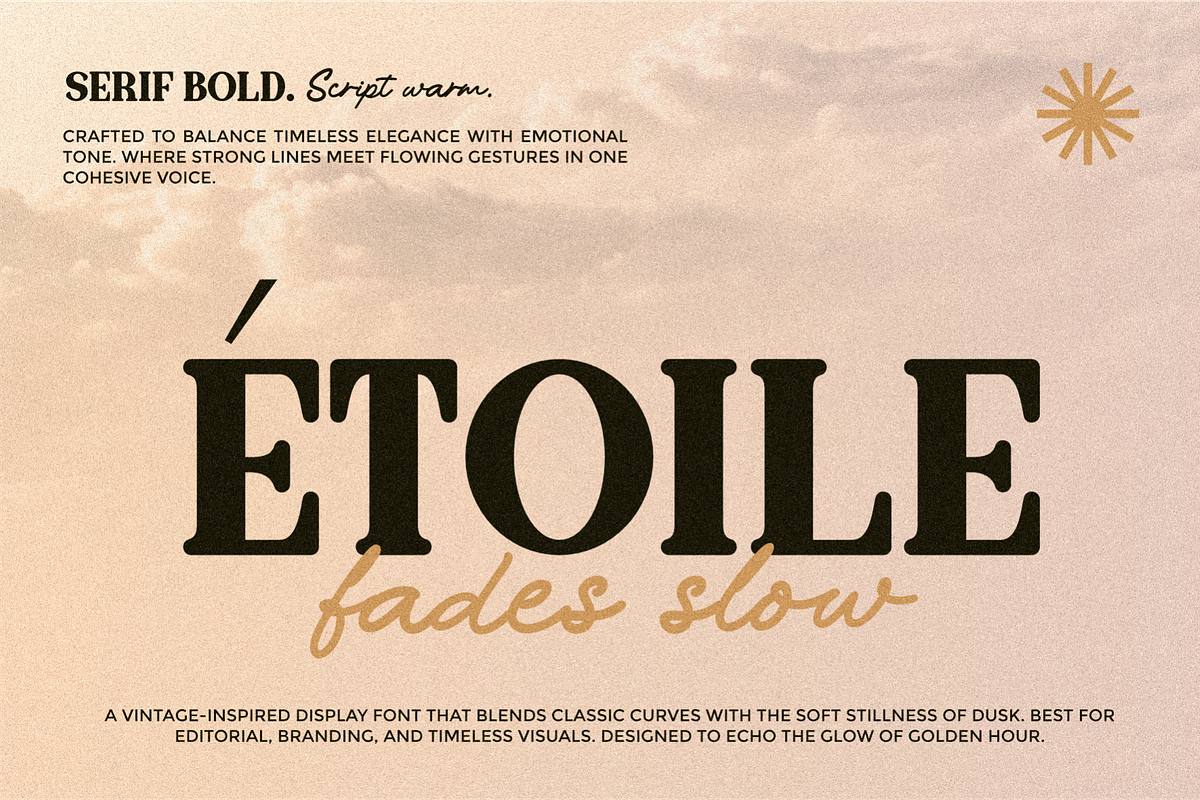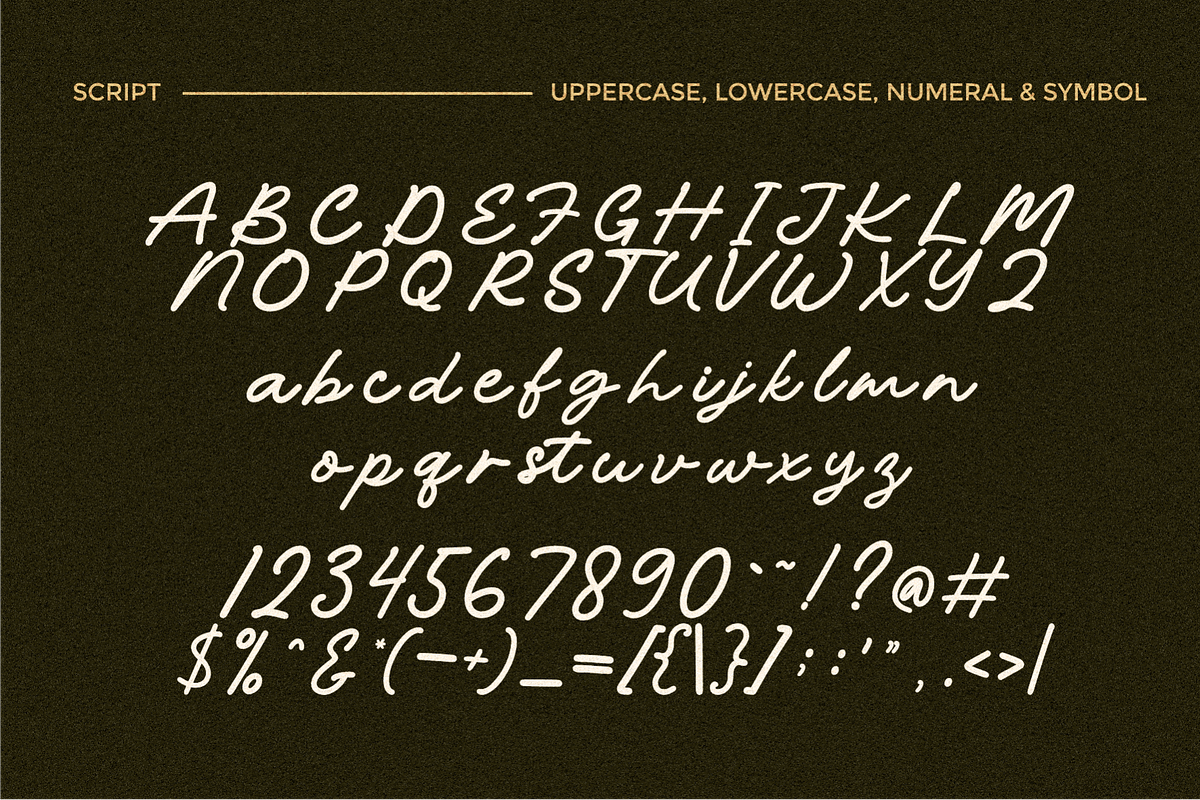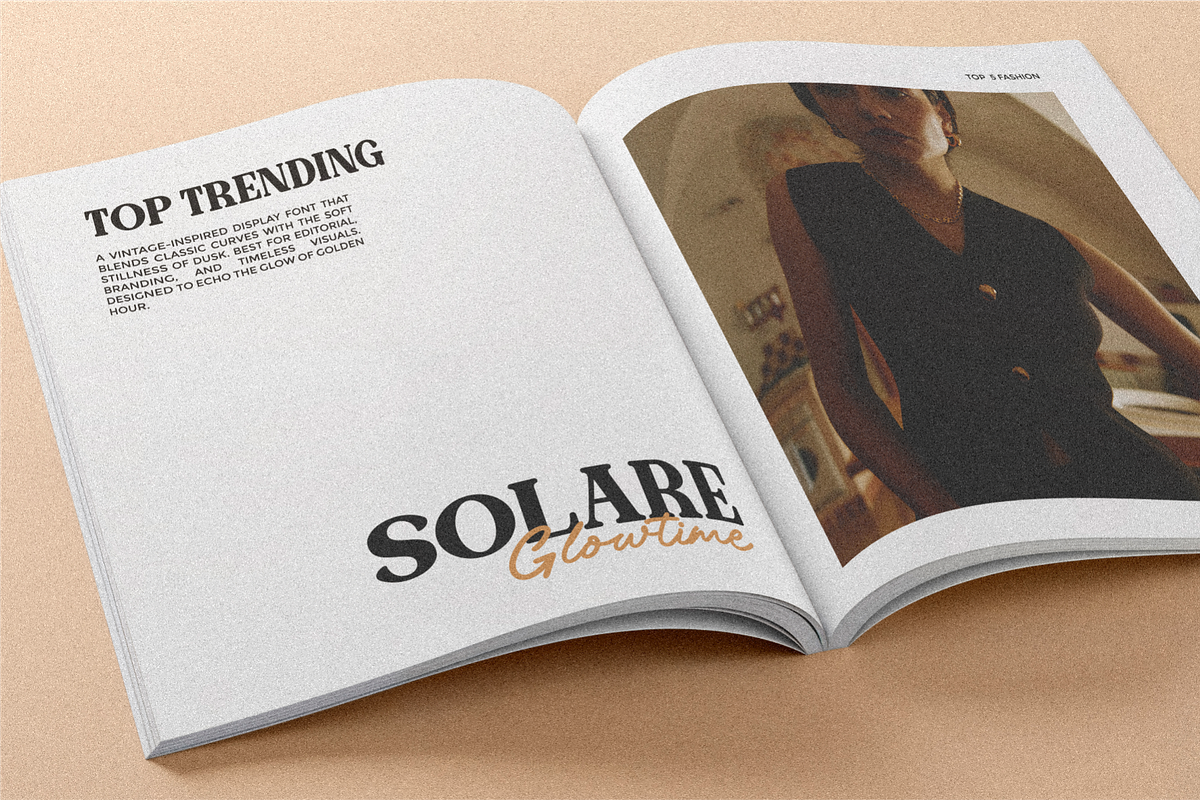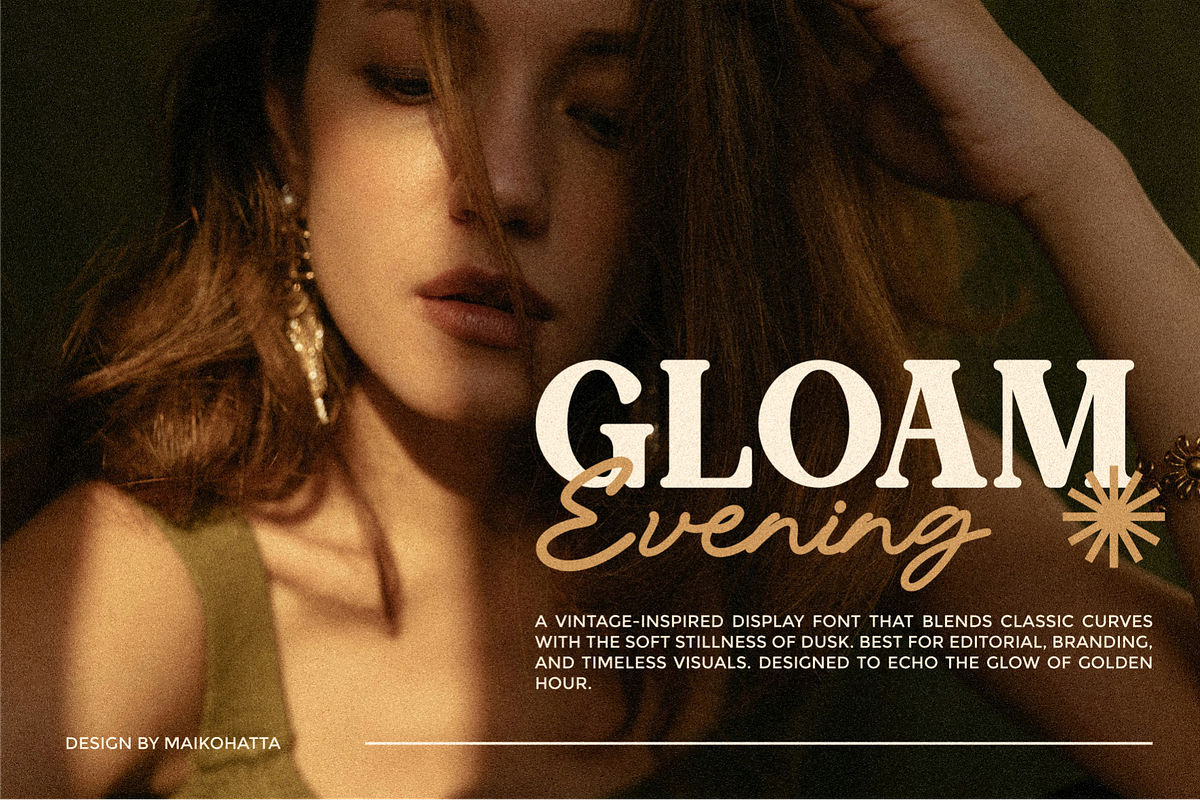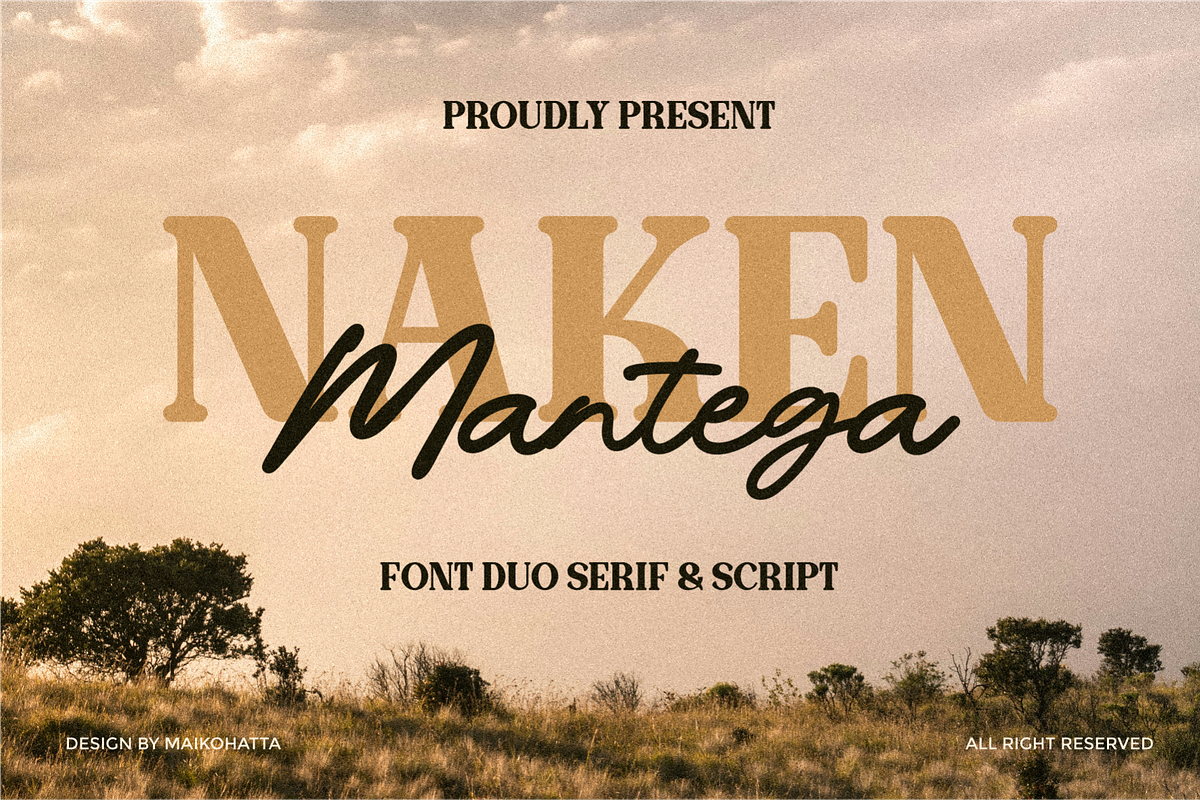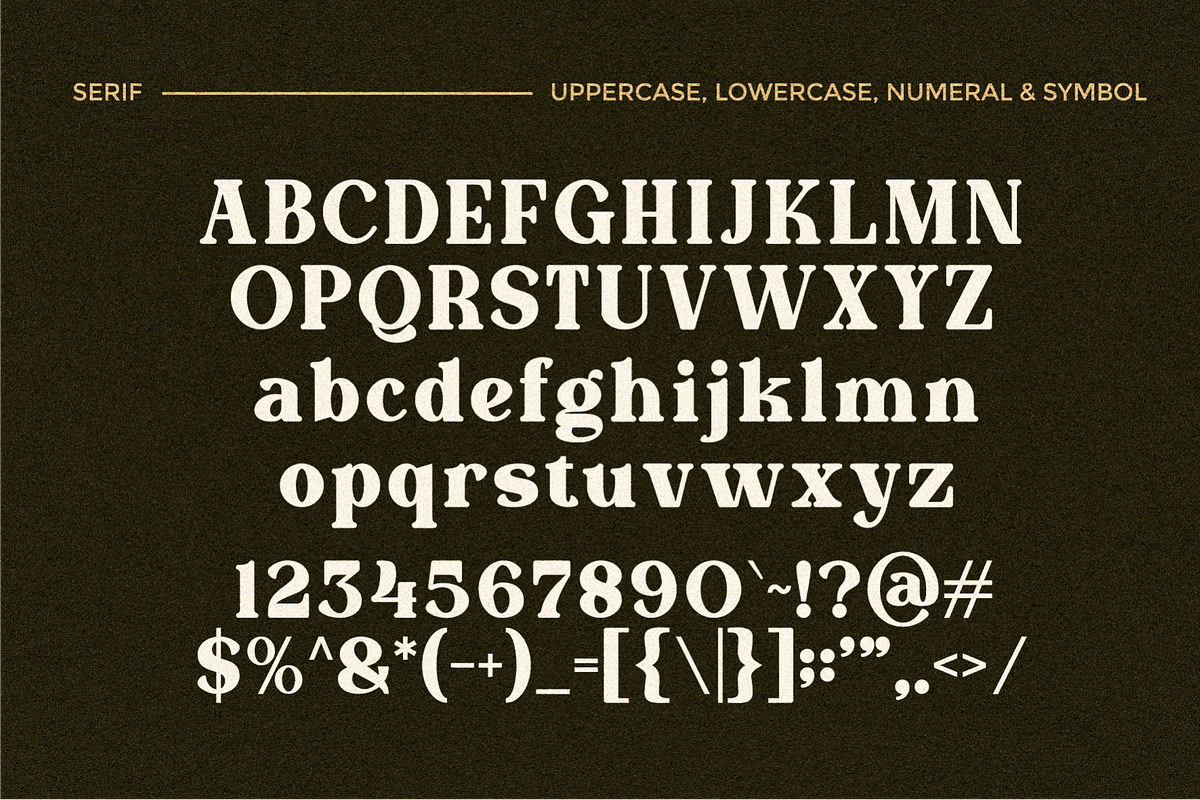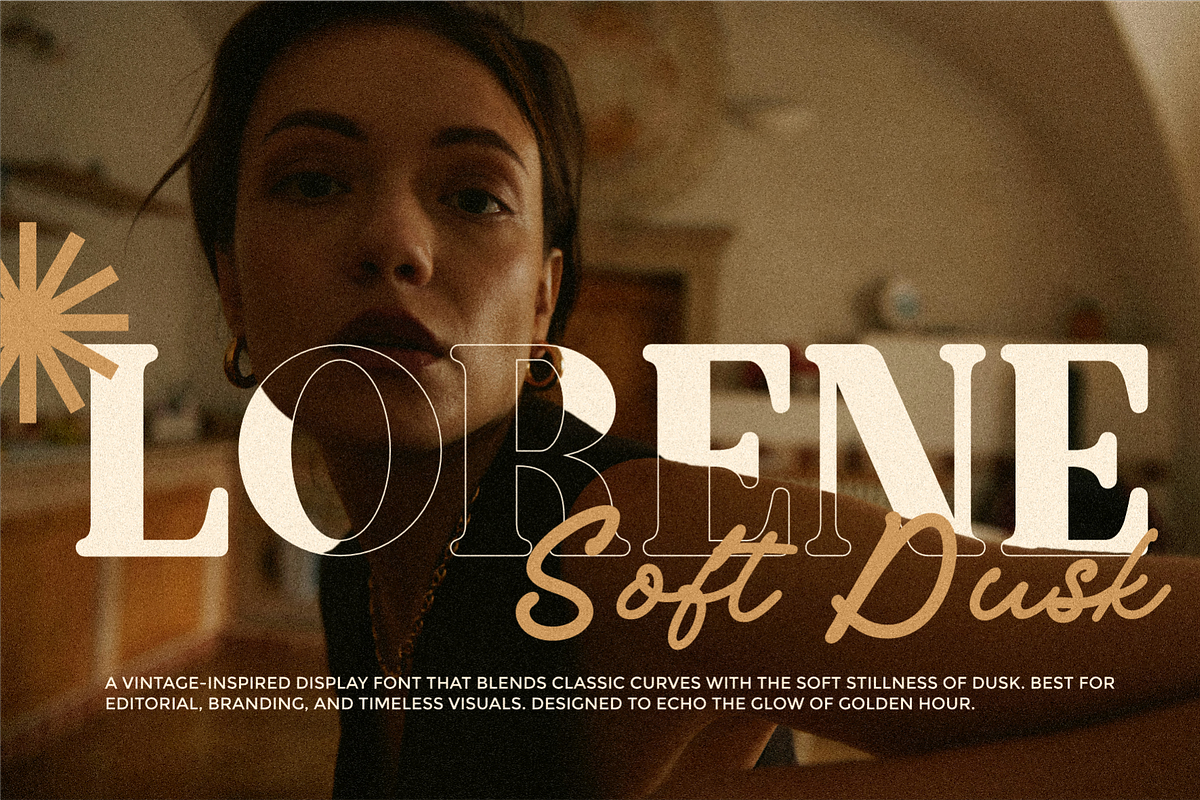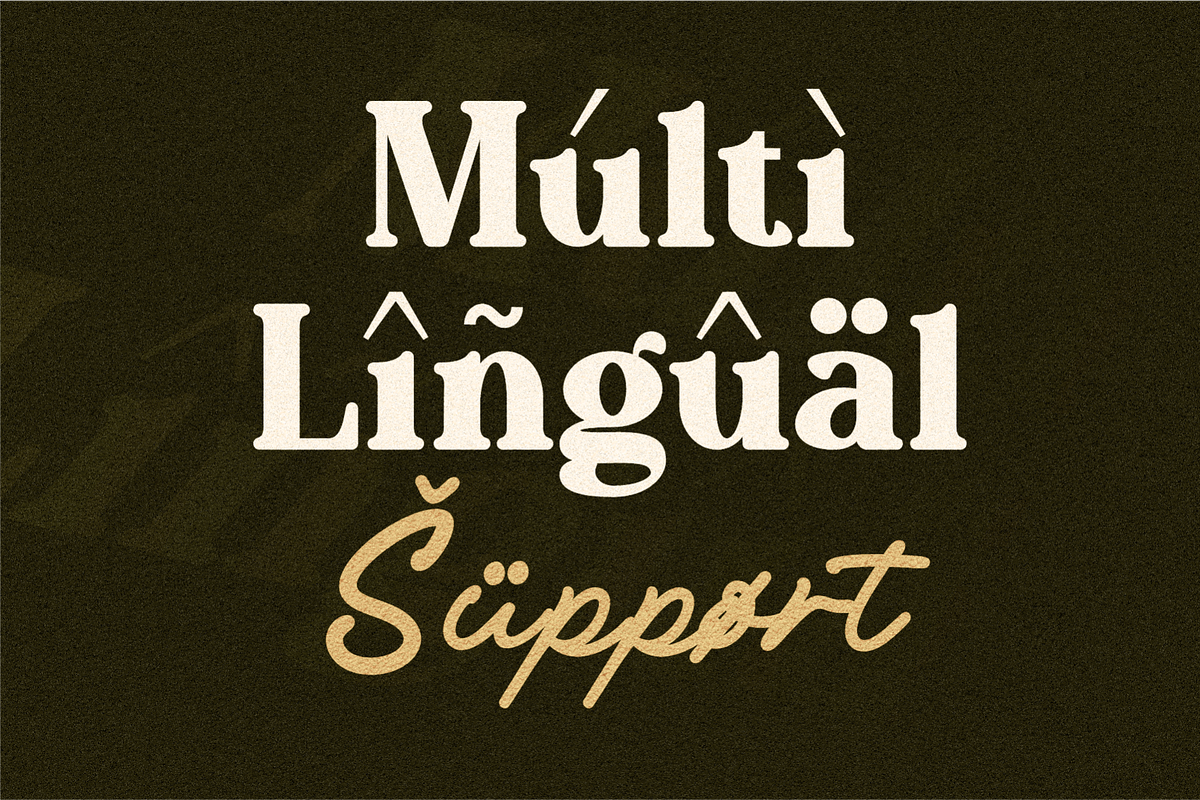
Naken Mantega - Font Duo Typeface
Introducing Naken Mantega, a stylish font duo that blends bold serif elegance with a smooth modern script. Designed to bring charm and versatility to any project, this font duo is perfect for branding, packaging, editorial designs, wedding invitations, and more.
Naken – A classic serif font with a bold, strong presence and soft rounded details, ideal for headlines and logos.
Mantega – A flowing script typeface with hand-lettered charm, perfect for adding a touch of personality and warmth.
Together, they create a perfect harmony between tradition and trend, elegance and informality.